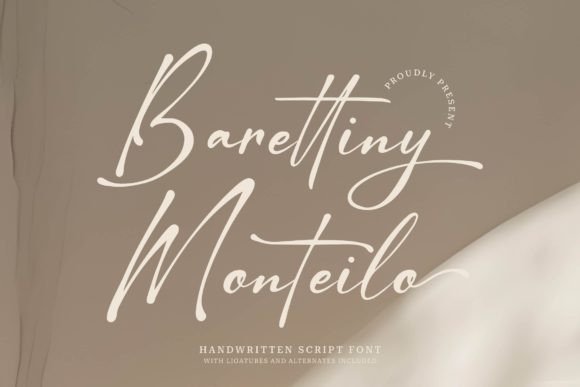
The Perfect Script: Unveiling Barettiny Monteilo Font
Have you ever stared at a blank page, pencil in hand, waiting for inspiration to strike? The feeling of creativity coursing through your veins, the rush of excitement as your ideas begin to take shape. For designers, this moment is a regular occurrence, but sometimes it’s the right tools that can elevate their work to the next level. That’s where the Barettiny Monteilo Font comes in – a beautiful, handwritten script that’s perfect for adding a touch of elegance to any project.
Whether you’re working on a logo, branding project, or simply need a font that exudes warmth and personality, the Barettiny Monteilo Font is an invaluable asset. Its versatility makes it suitable for a wide range of applications, from homeware designs and product packaging to quotes and posters. With the Barettiny Monteilo Font, designers can unlock new creative possibilities and take their work to new heights.
Barettiny Monteilo Font Key Features
- Unique Characteristics: This elegant script font features flowing connections between letters, perfect for creative and artistic designs.
- Font Style: Cursive, Script, Elegant, Artistic
Barettiny Monteilo Font Review
As a designer, I was excited to try out the Barettiny Monteilo font, and overall, I’m quite impressed. ✨ Here are some of its strengths:
- Unique Character: The font has a distinctive, whimsical feel to it, making it perfect for projects that need a touch of personality.
- Legibility: Despite its playful nature, the font is surprisingly legible, even at smaller sizes.
- Customization: The font comes with a range of styles and weights, allowing for a high degree of customization.
- Limited Support: The font may not be supported by all devices or platforms, which could cause compatibility issues.
- Size Constraints: While the font is legible, it’s best used at medium to large sizes. At very small sizes, it can become difficult to read.
Overall, I think the Barettiny Monteilo font is a great choice for designers looking to add some personality to their projects. While it may have some limitations, its unique character and customization options make it a valuable addition to any design toolkit.
For the best results, use the Barettiny Monteilo Font for titles, headings, and other display text. It’s ideal for creating a sophisticated and elegant look in your designs. You can also use it for invitations, business cards, and other materials where a touch of sophistication is needed.
The recommended font size range for Barettiny Monteilo is between 10px and 24px. However, the optimal font size may vary depending on the specific design, screen resolution, and intended audience. It’s essential to test different font sizes to ensure readability and visual appeal.